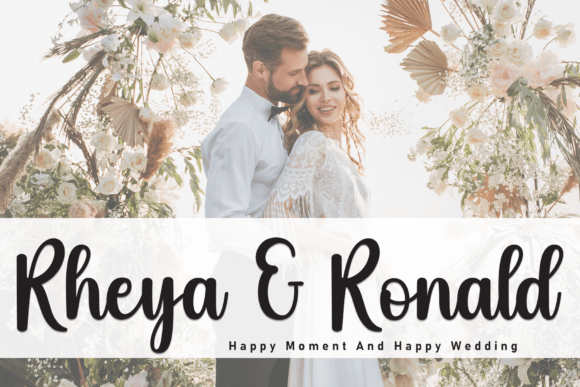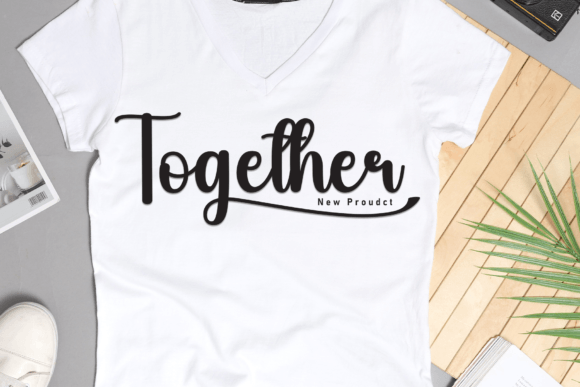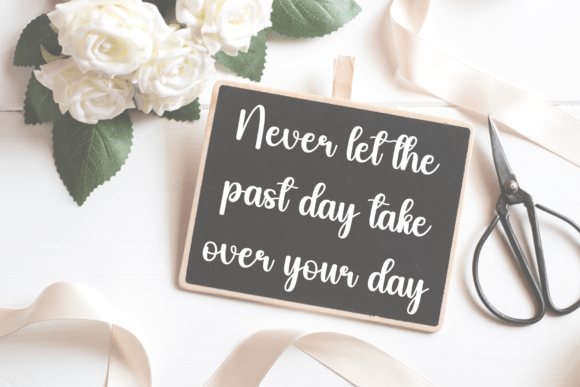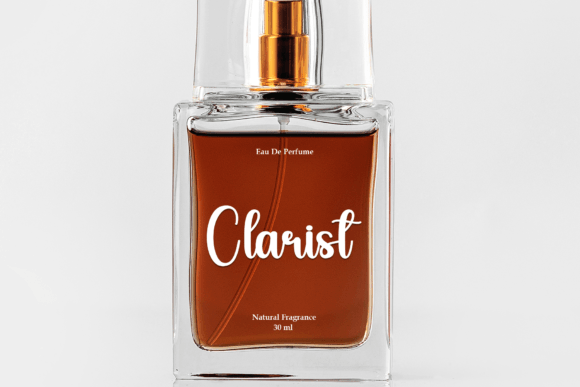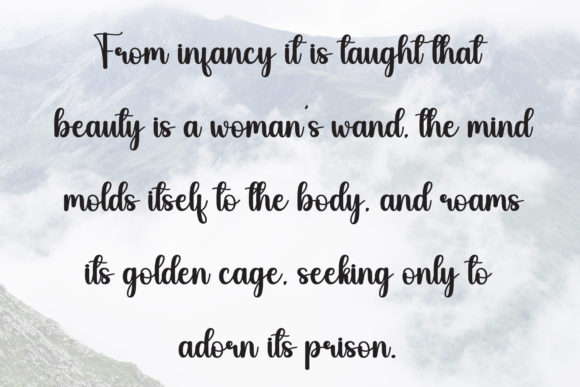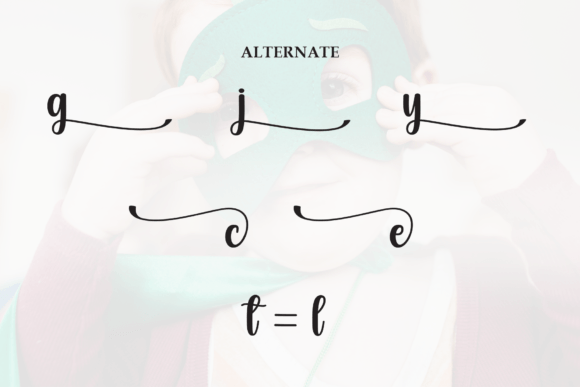
Introduction to Mycostume Font
Have you ever stumbled upon a design project that requires a dash of whimsy and playfulness? Maybe it’s a wedding invitation, a birthday card, or even a social media post that needs a fun twist. I’m sure many designers can relate to that moment of creative struggle, searching for the perfect design resource to bring our ideas to life. Well, today we’re excited to introduce you to the Mycostume Font – a sweet and friendly handwritten display font that’s sure to add a touch of magic to your next creative project.
As a valuable addition to any designer’s toolkit, the Mycostume Font is perfect for those looking to elevate their designs with a high-quality, free download that’s easy to use. With its transparent background, you can seamlessly integrate this font into your design without any hassle. Whether you’re a seasoned pro or just starting out, the Mycostume Font is an excellent choice for any creative project that requires a fun and friendly touch.
Key Features of Mycostume Font
- Mycostume Font is a high-quality design resource ideal for creative projects, offering a unique and stylish aesthetic.
- The font includes a transparent background, allowing for seamless integration with various design elements and backgrounds.
- Mycostume Font’s unique characteristics include its bold and playful style, making it perfect for use in graphic design, web design, and other creative fields.
Honest Review: Mycostume Font
I recently came across the Mycostume Font and I’m excited to share my thoughts with fellow designers. As a design resource, I was looking for a high-quality font to enhance a creative project. The Mycostume Font delivers, with its unique and quirky aesthetic.
What works well is the font’s versatility – it’s suitable for both digital and print designs, from fashion to editorial projects. The font also comes with a transparent background, making it easy to use in various design scenarios. ✨
While the Mycostume Font is a great addition to any design arsenal, I do have a few limitations to note. ⚠️ The font may not be suitable for projects requiring a more formal or traditional look, as its quirky design may not fit the bill. Additionally, the font may not be compatible with all design software or platforms.
Overall, I’m impressed with the Mycostume Font and would highly recommend it to designers looking for a unique and high-quality font for their creative projects.
- Unique and quirky design
Mycostume Font is a high-quality design resource perfect for your next creative project. This free download is ideal for designers and non-designers alike, offering a unique and versatile font style that can elevate any design.
Mycostume Font is perfect for:
- Brand logos and marketing materials.
- Graphic design projects and creative portfolios.